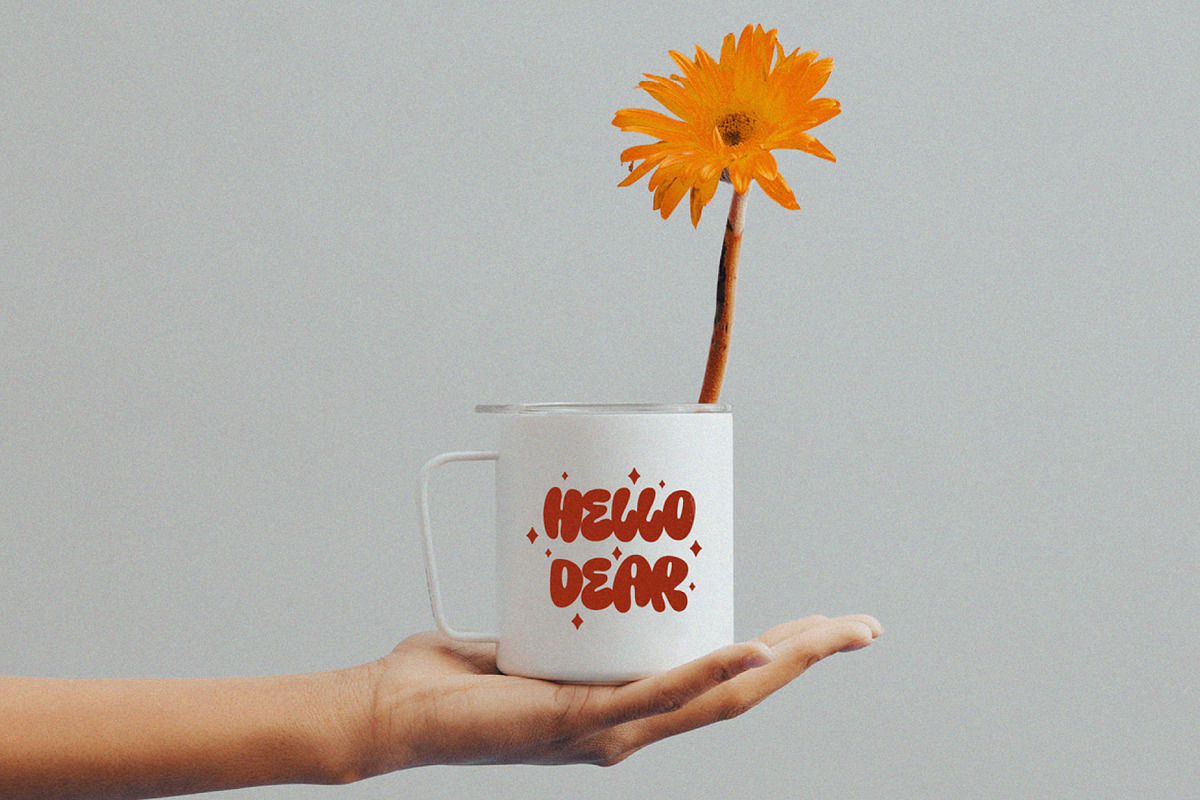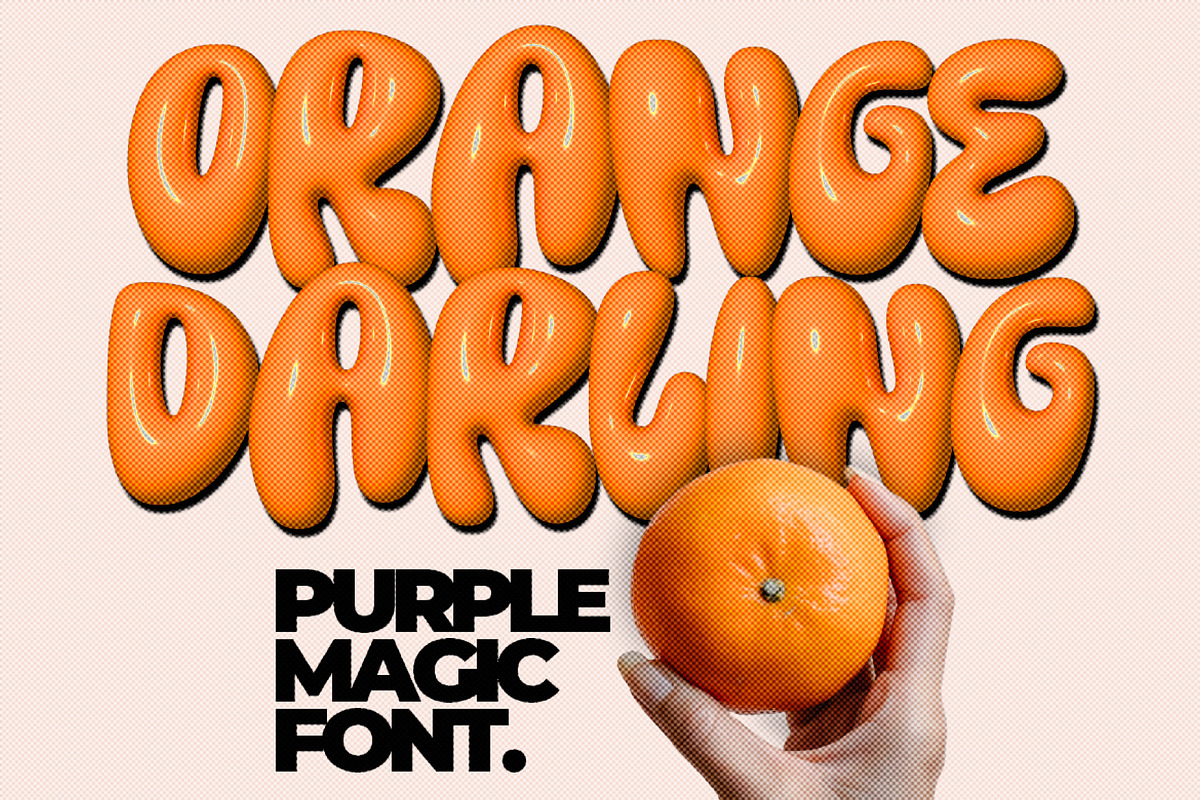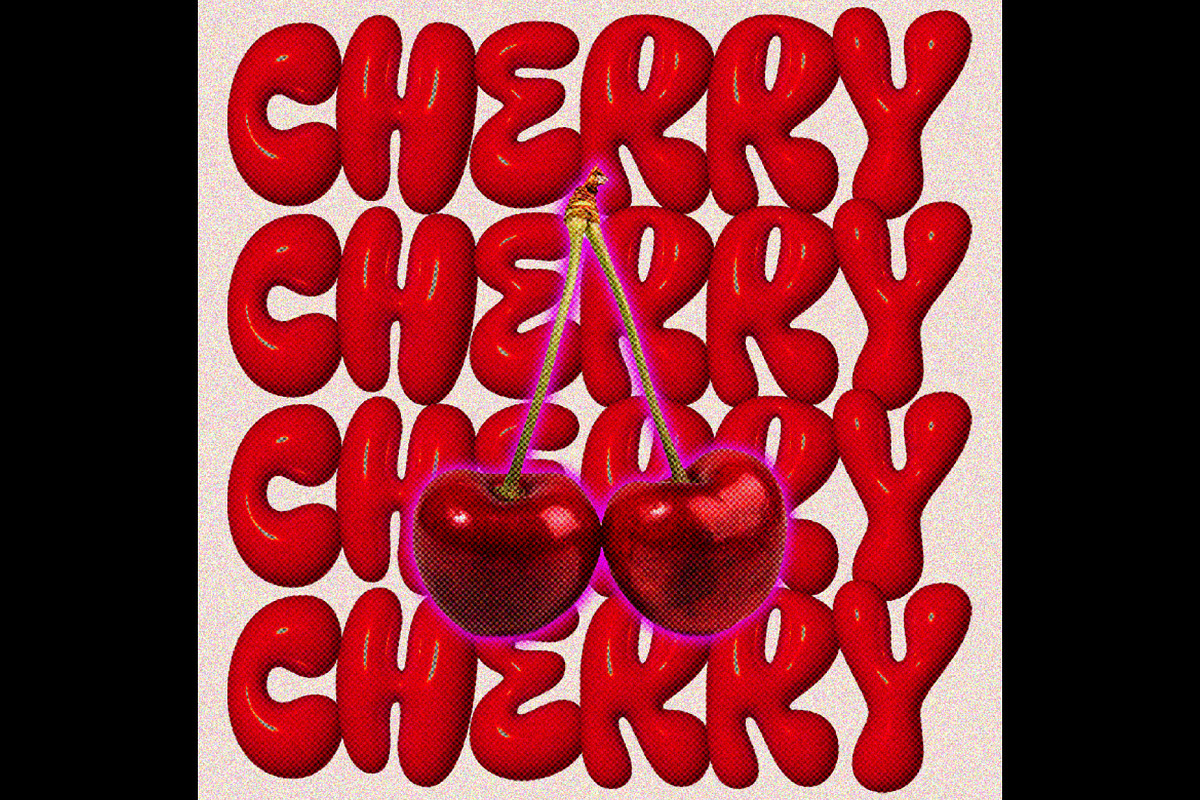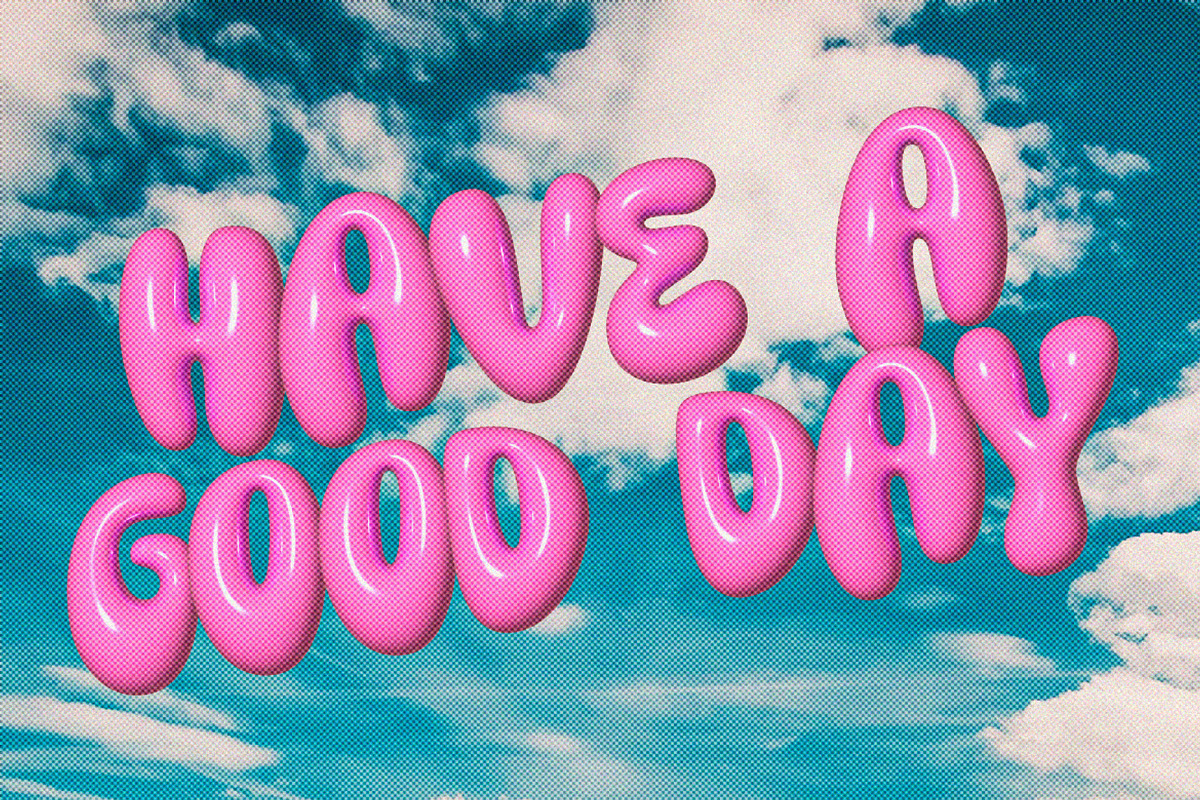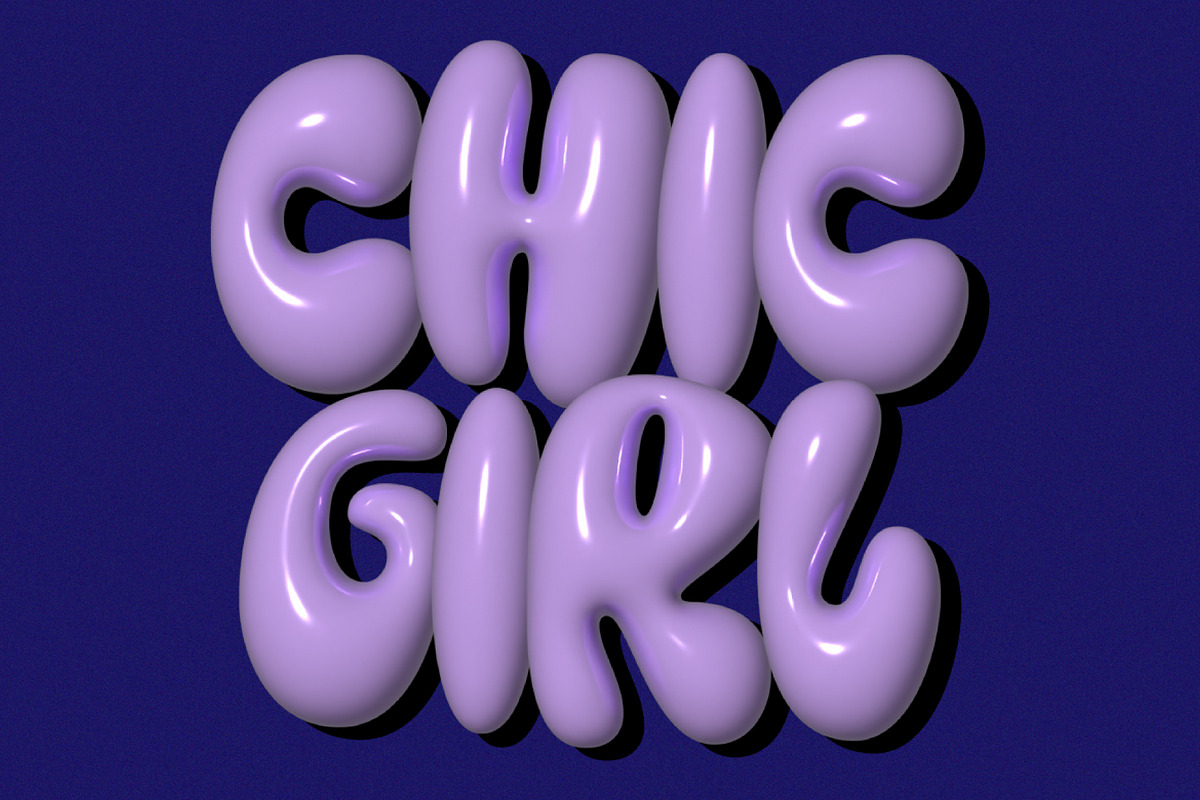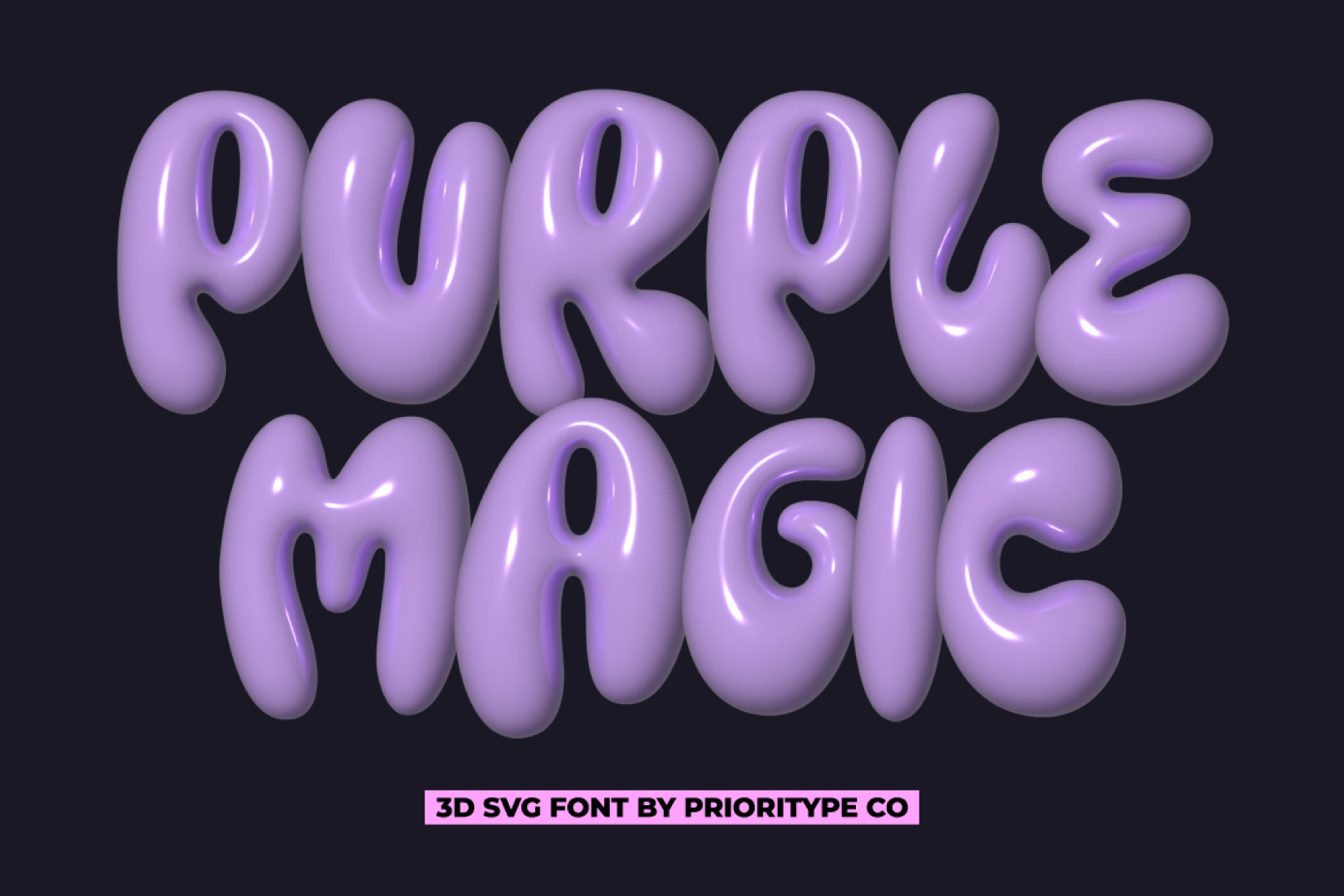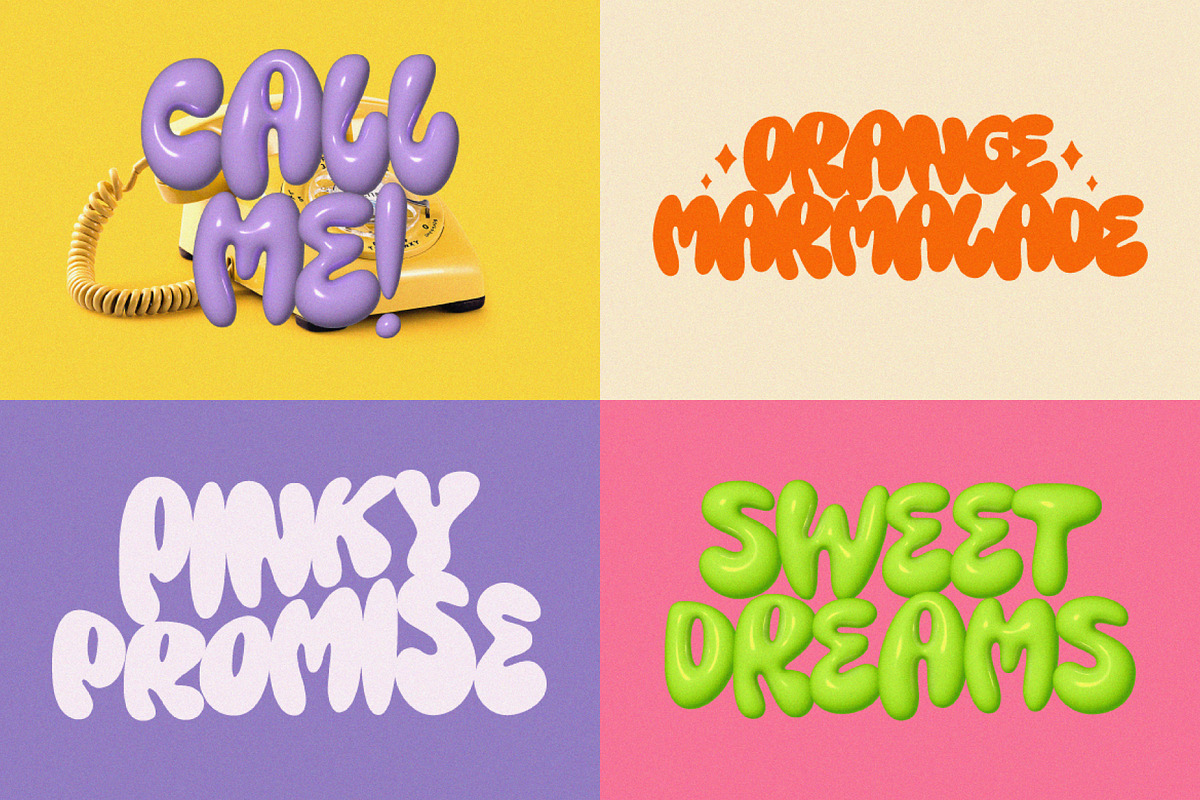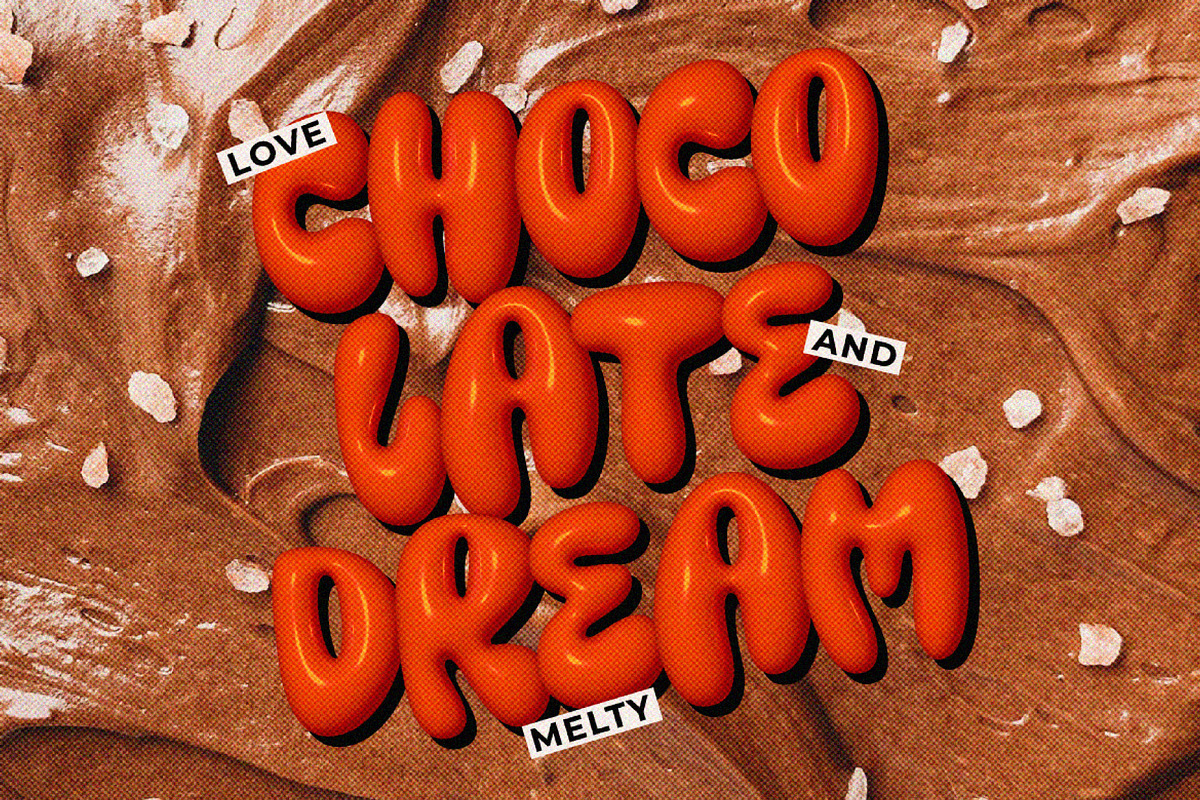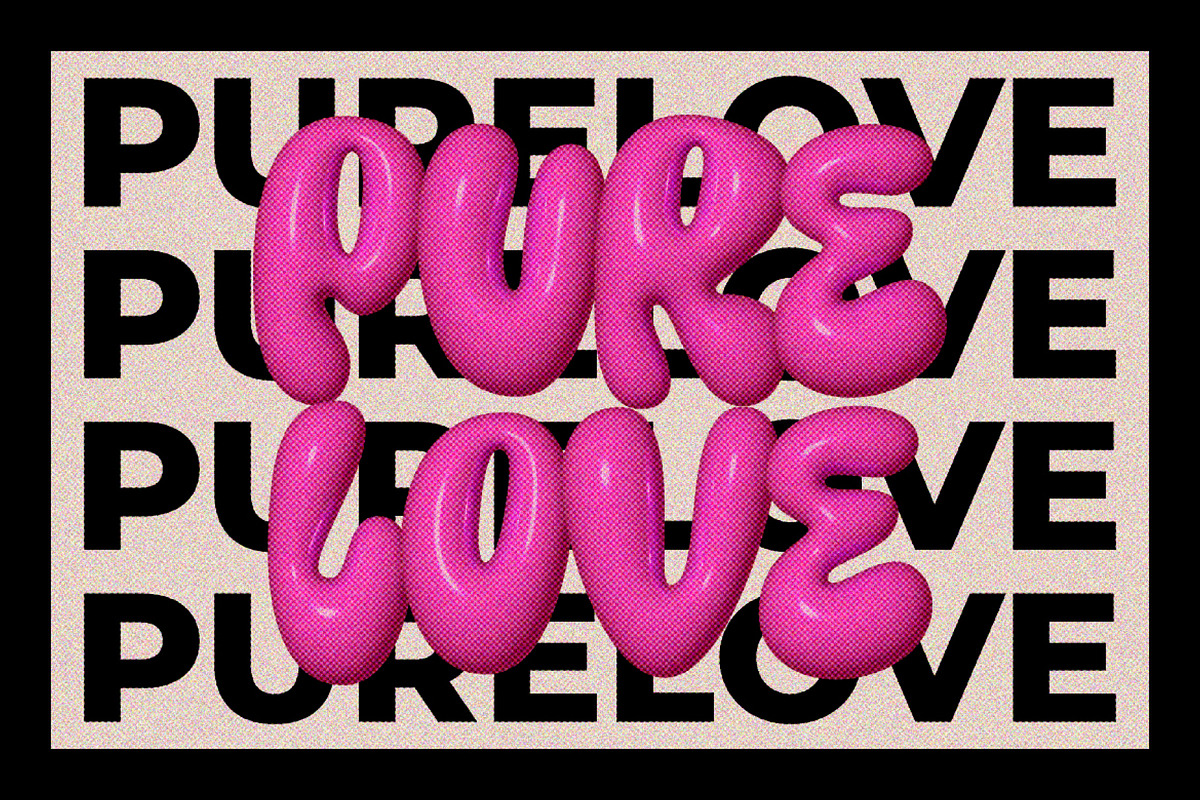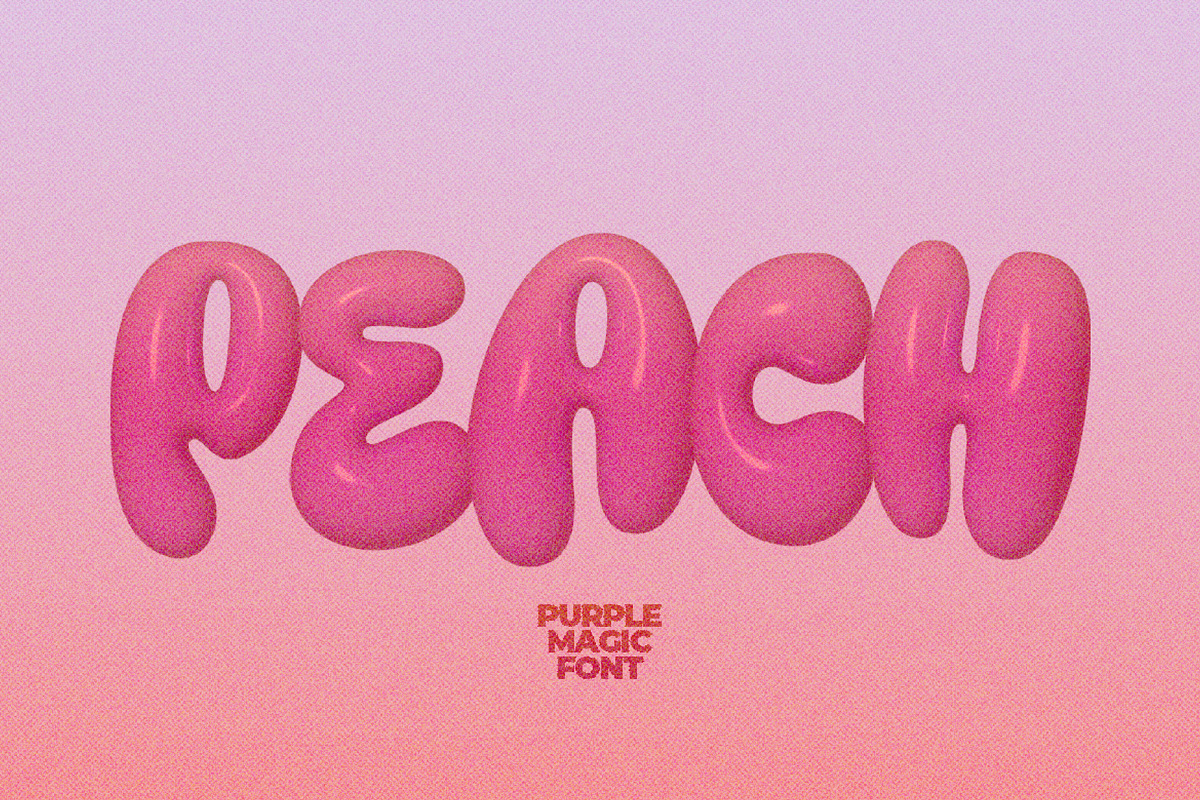
Purple Magic - 3D SVG Font
Hand drawn chubby font with 2 styles namely (3d svg and regular). It is perfect for contemporary designs. Great for poster designs, social media posts, logos etc.
- Features: Uppercase, Lowercase, Numeral, Punctuation & Multilingual.